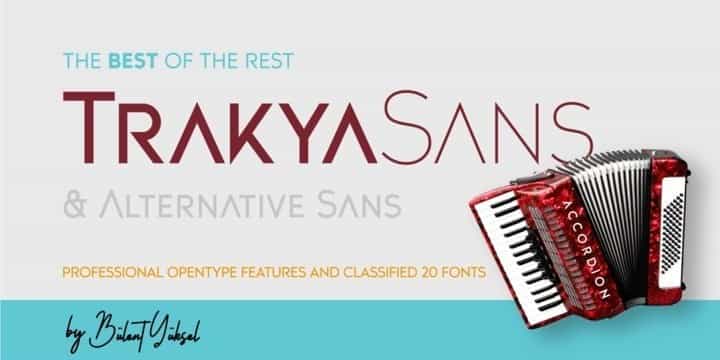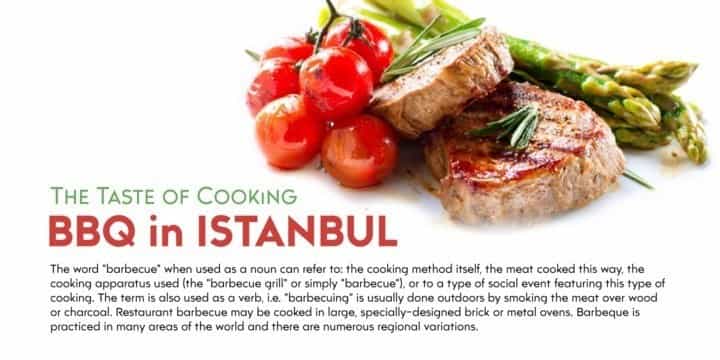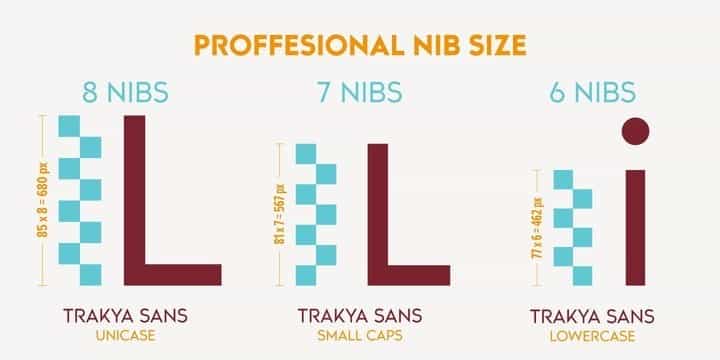
Trakya Sans Font is an eye-catching modern and contemporary sans serif font designed with stunning titles, logos, web layouts and branding in mind. This font looks incredible when written all-caps with wide spacing for an impressive and sophisticated aesthetic, or can stand alone as lowercase letters for a timeless and elegant aesthetic.